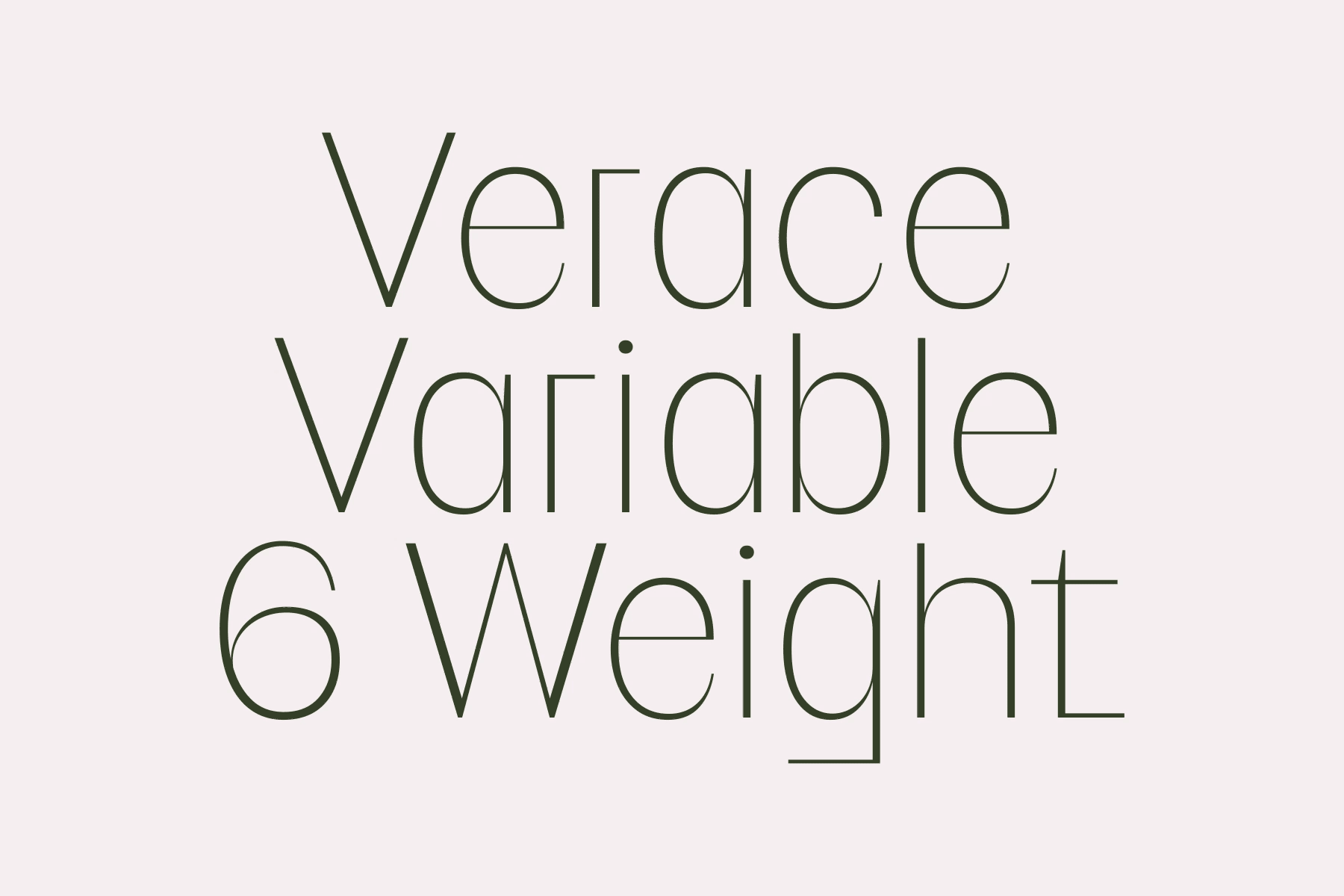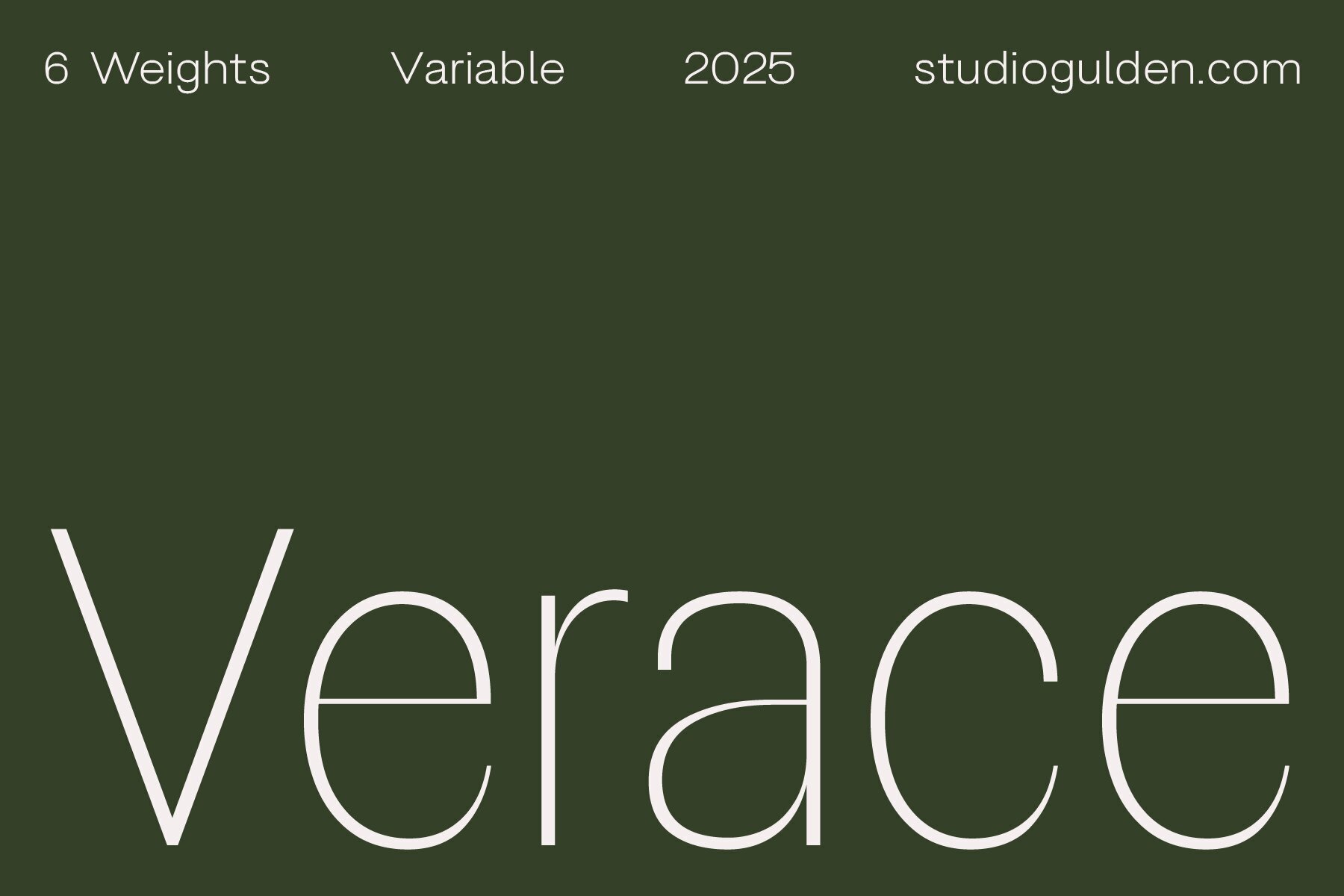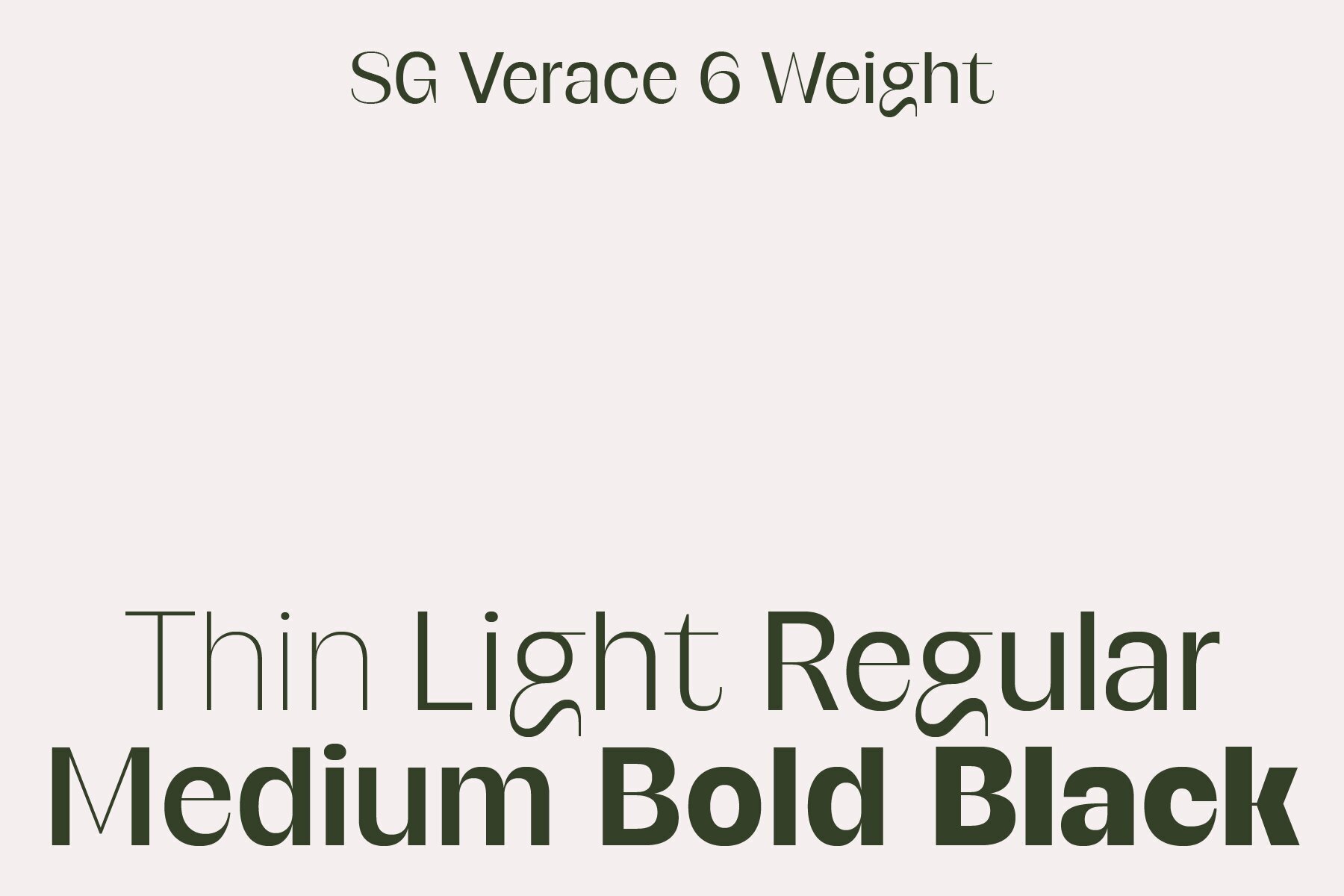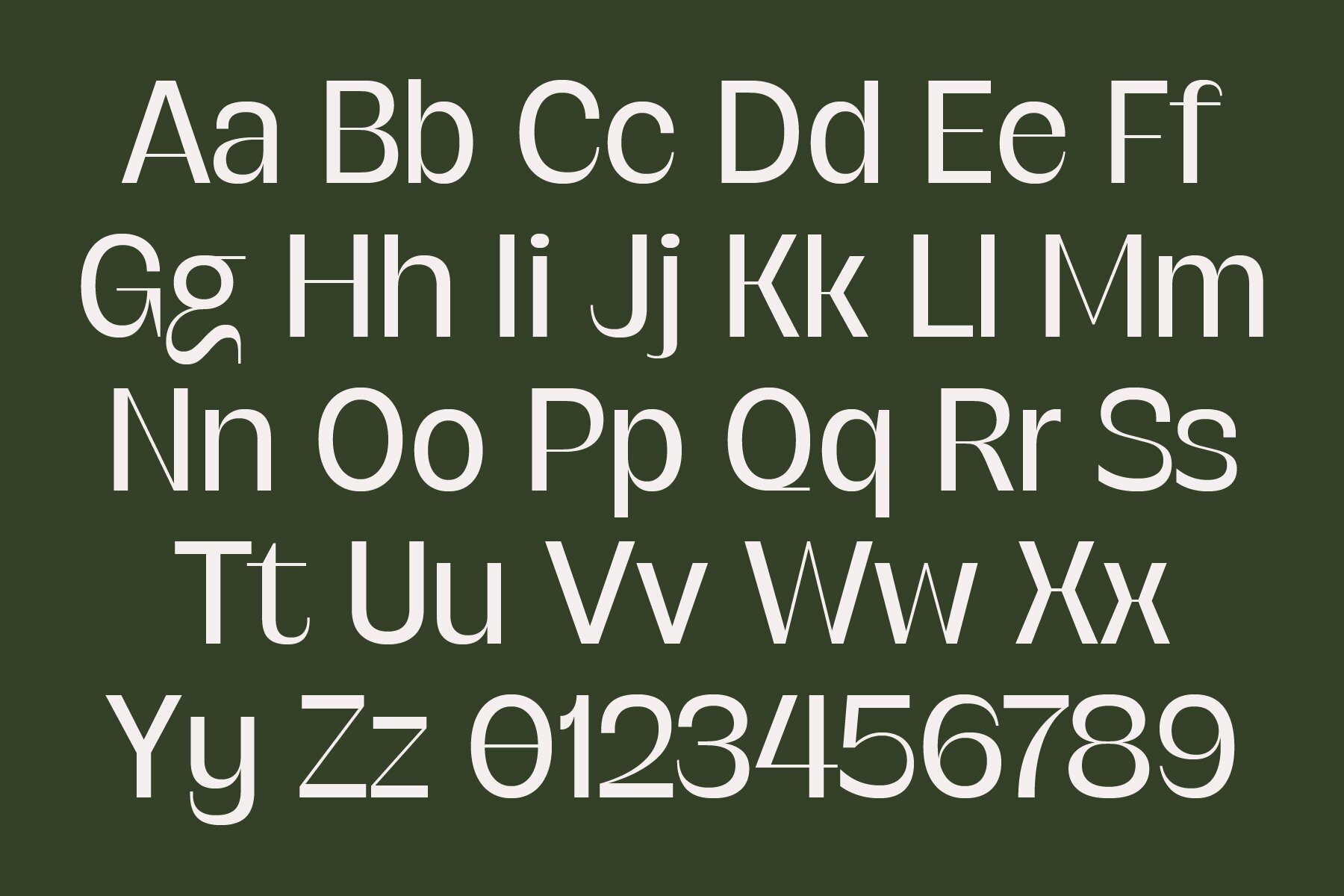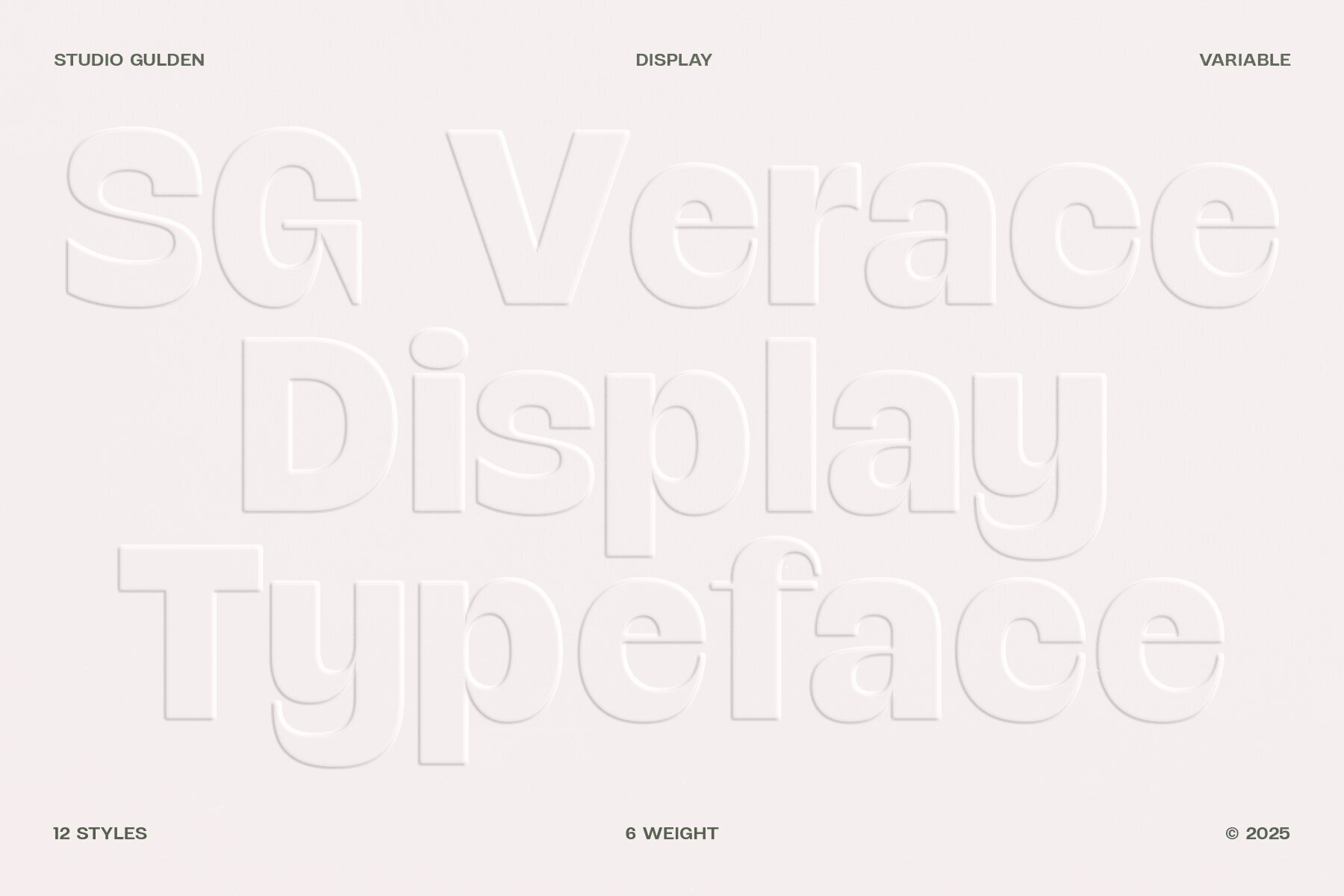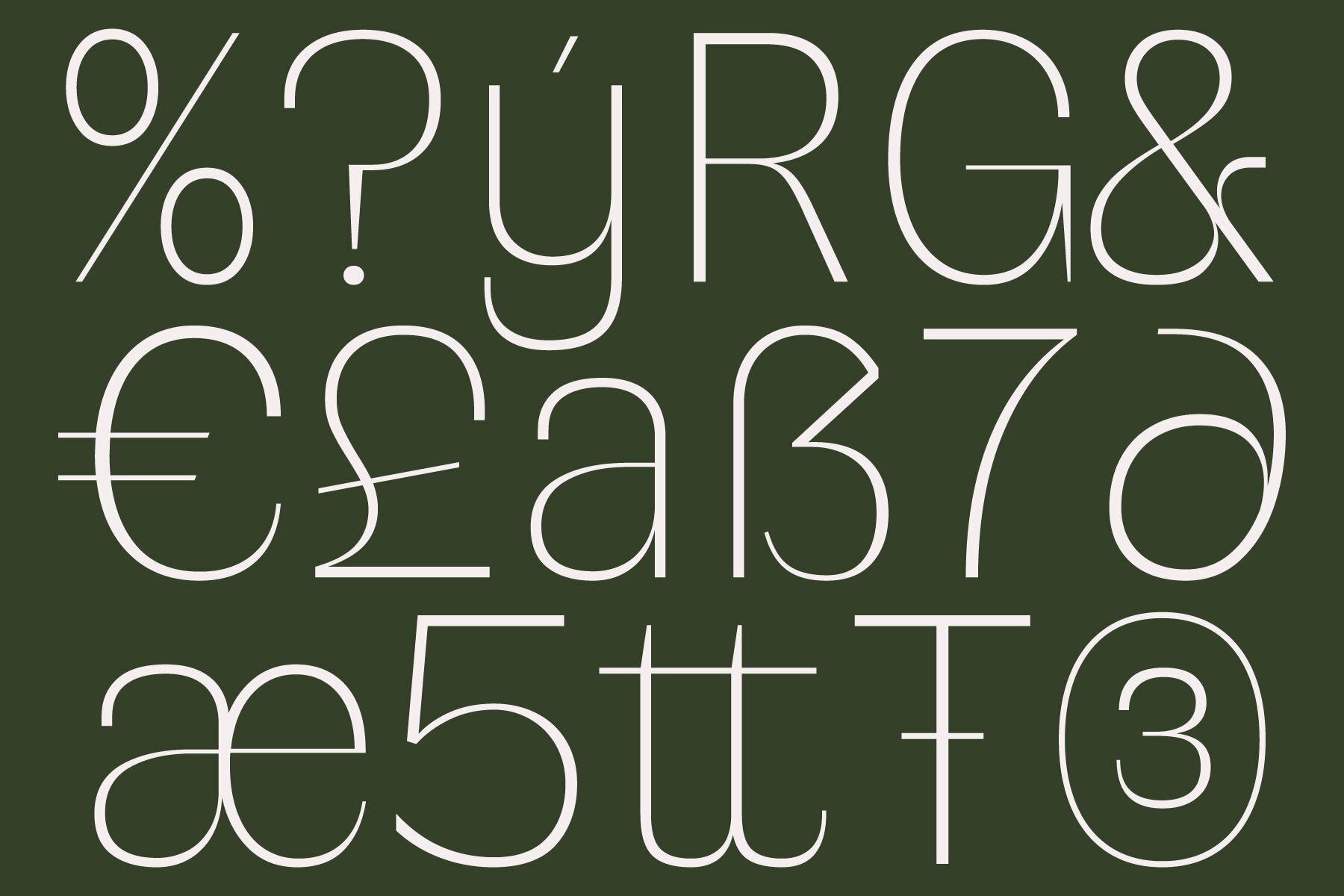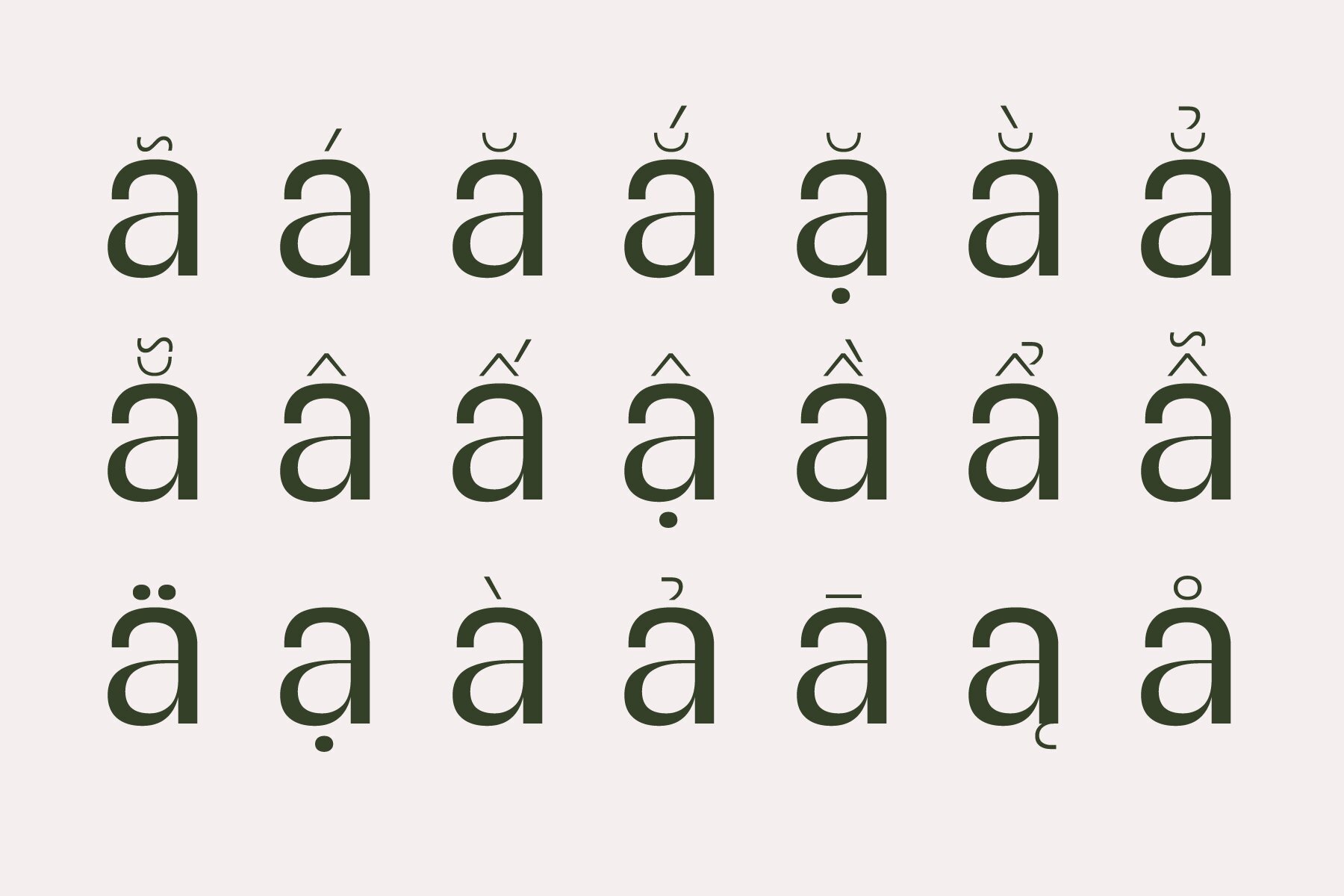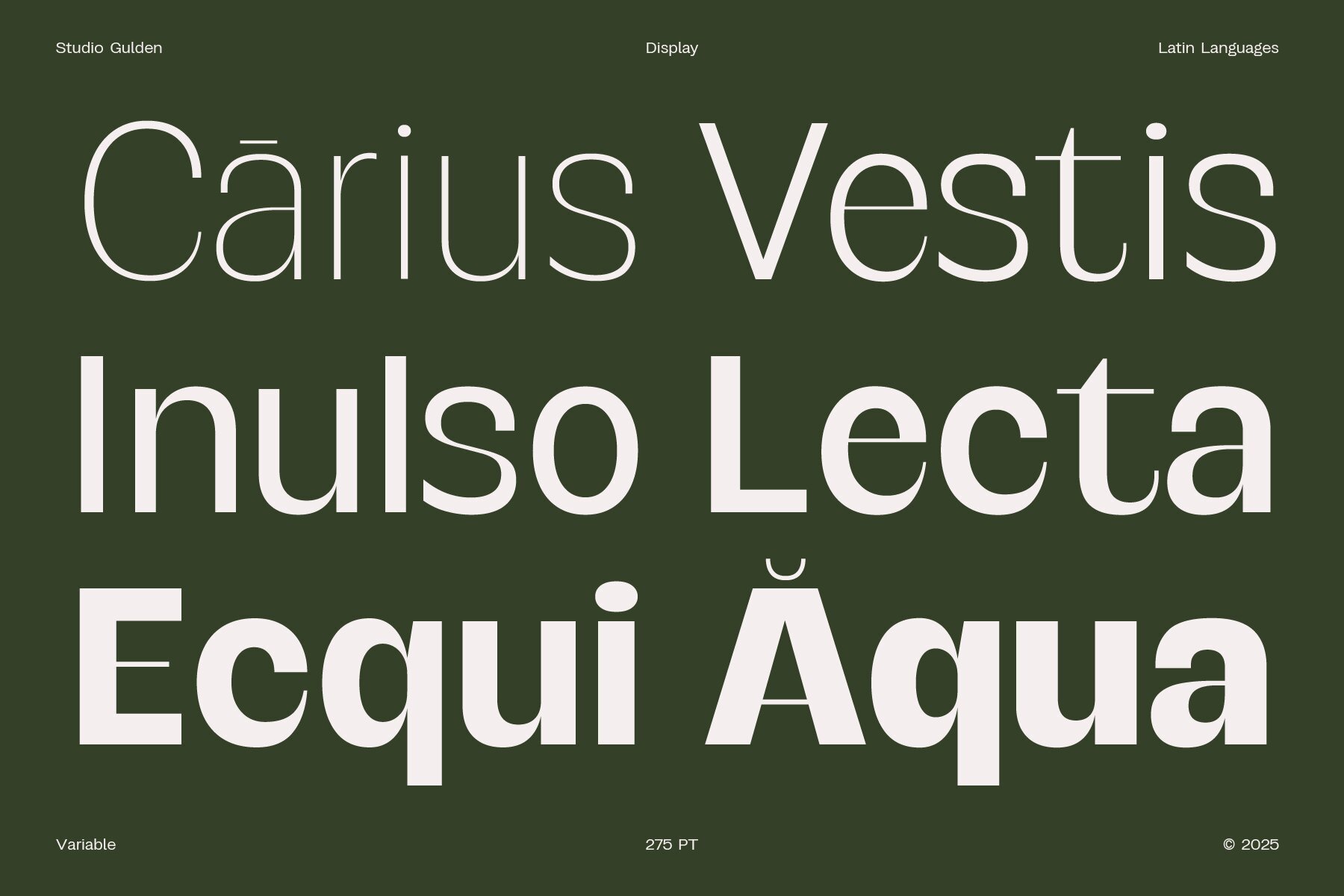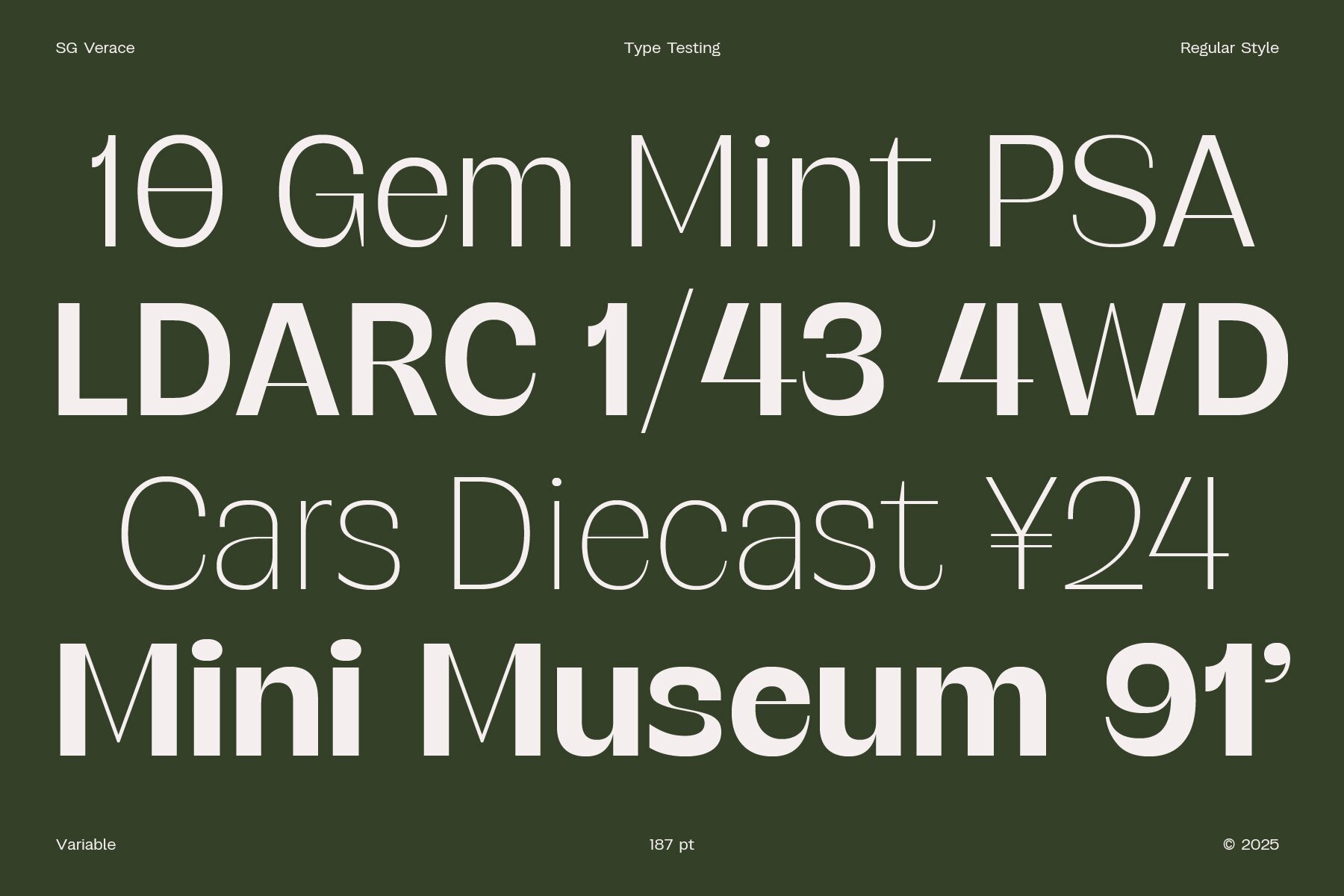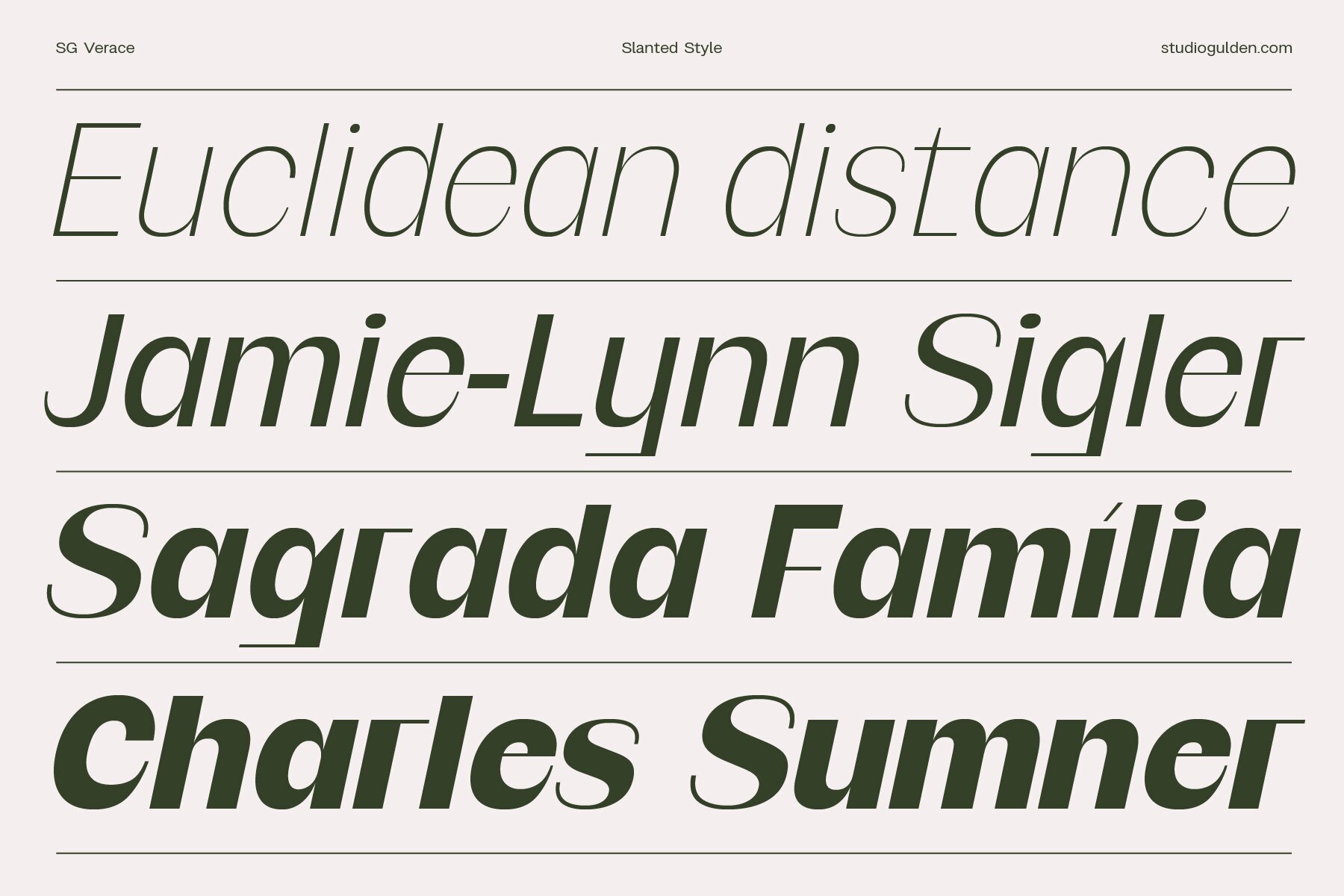
SG Verace Font
SG Verace stands apart in modern typography, merging digital clarity with architectural definition. Designed for those who favor precision, this sans serif typeface delivers sharp lines and striking character details. SG Verace rejects neutrality, giving each letterform a clean yet assertive presence—qualities sought after by creative professionals who prioritize clarity and confidence in visual identity. This typeface is rooted in the balance between rational neo-grotesk structure and singular, personality-driven forms. Eye-catching details—such as the distinct spur on the 'G', the sharp tail of the 'Q', and angular junctions in the 'K' and 'R'—create memorable visual rhythm. Its versatility is evident across applications, providing design studios, branding agencies, and UI/UX specialists with a refined tool that upholds clarity in both digital interfaces and print environments. SG Verace lends a sophisticated, technical tone to branding, editorial layouts, user interfaces, and premium print projects.SG Verace: Decisive Sans Serif with Architectural Clarity